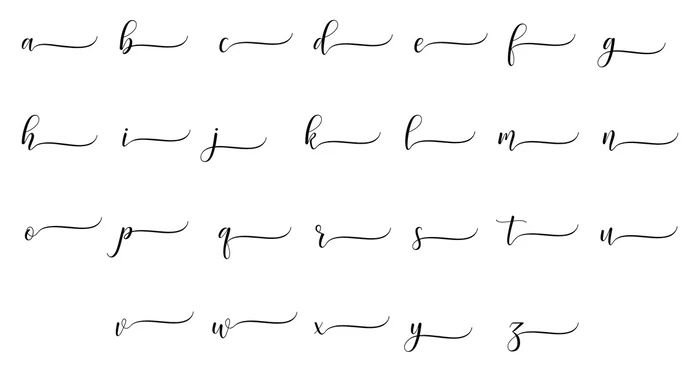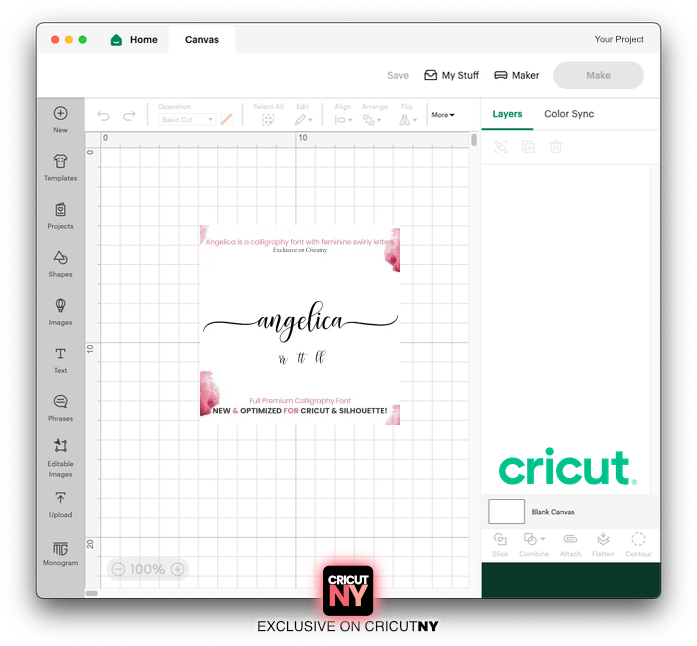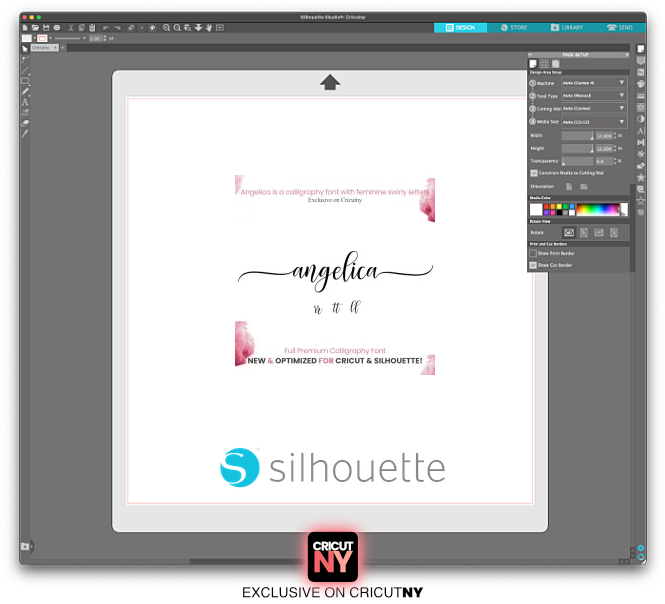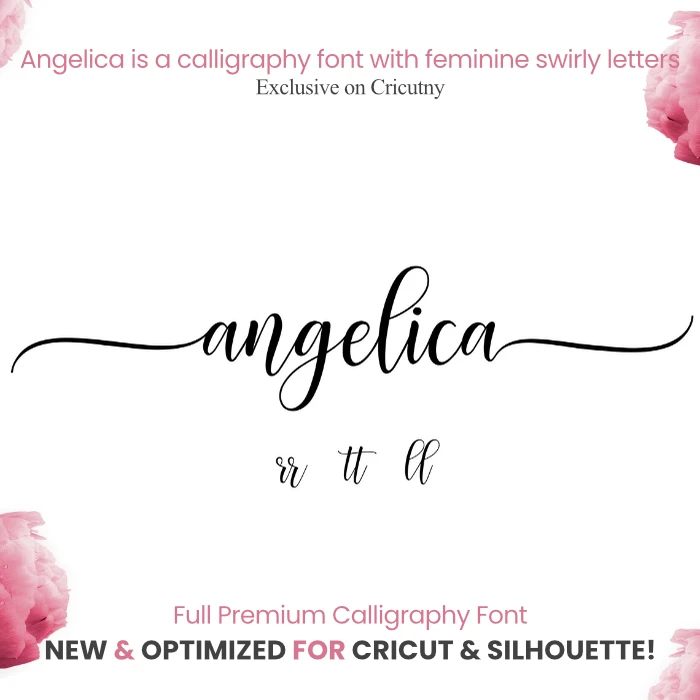
Calligraphy font with swirly letters
Looking for a stunning calligraphy font that will make your wedding invitations or Cricut projects stand out? Look no further! The Angelica calligraphy font is one of the top-rated fonts in my Etsy shop, with over 26,000 glowing reviews. What’s more, as usual, I’m offering it to you for free when you sign up for a Premium Cricutny account. With its long tail letters, this font brings a touch of refinement and femininity to any project. Remember, the font you choose can make all the difference in conveying the right emotion and tone for your project. So why not choose a font that you feel truly special about? Get the Angelica calligraphy font today and elevate your designs to the next level!
The possibilities with this font are endless. This is just a glimpse of what you can accomplish.
With 3 pairs of duo characters, the font will give your visuals a one-of-a-kind look. Don’t miss out on the opportunity to make your text stand out.
Here’s a preview of the right and left tail letters.